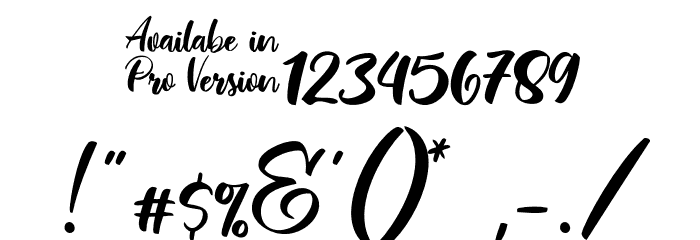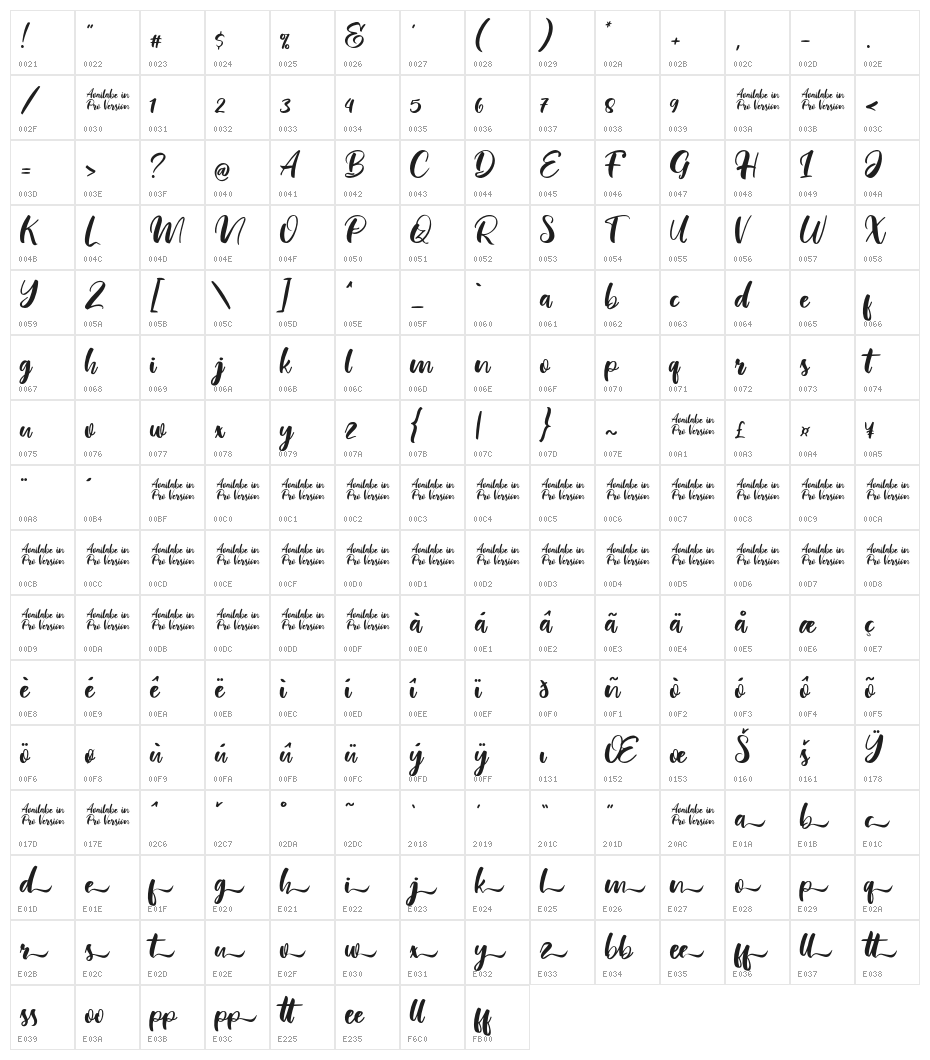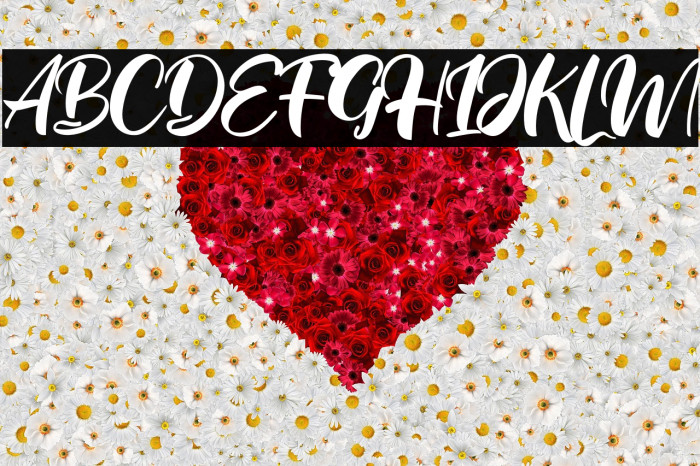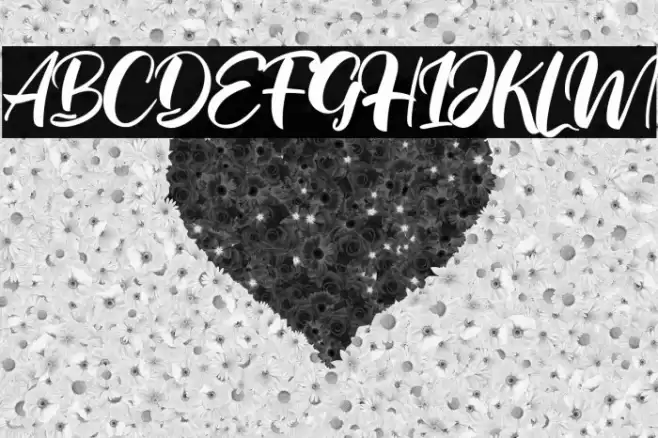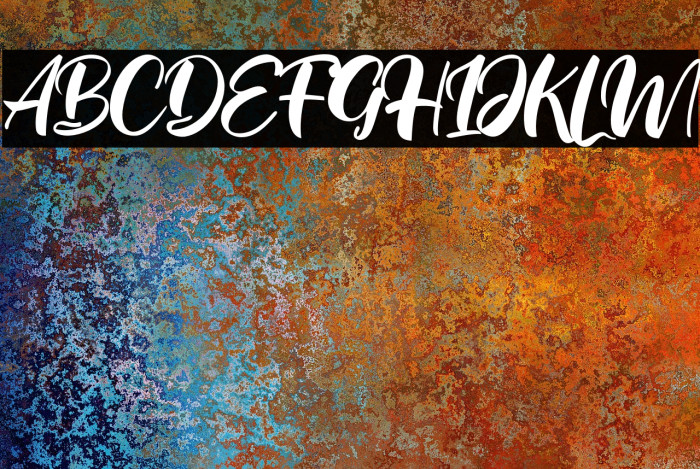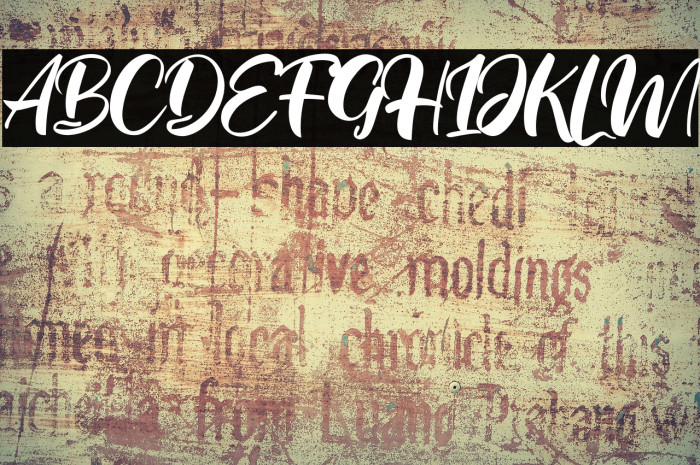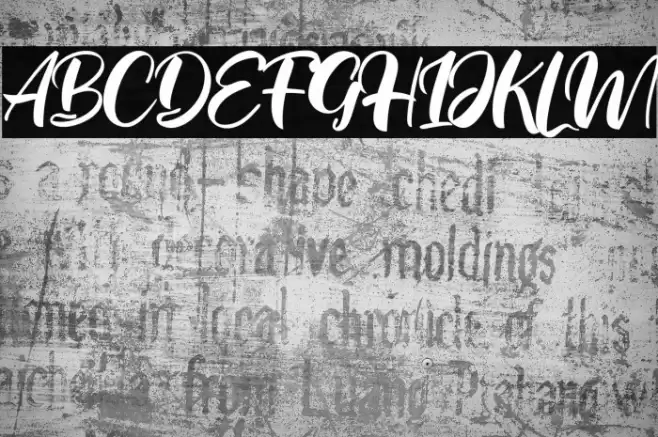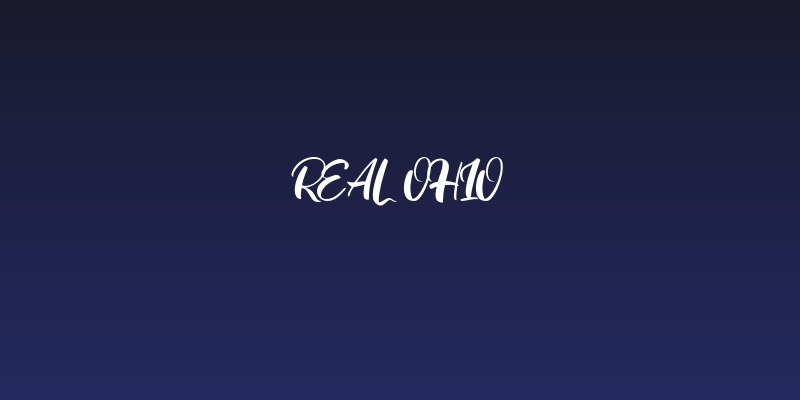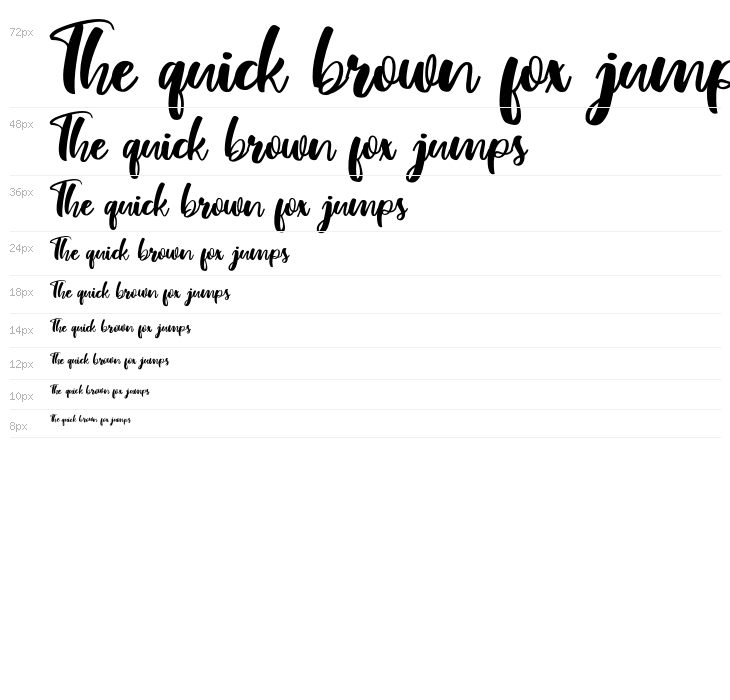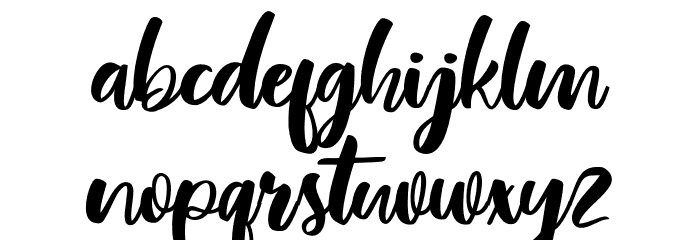
Real Ohio Font
Real Ohio Description
This font features a bold, flowing script style with a modern flair. The uppercase letters are characterized by their elegant, sweeping curves and dynamic strokes, giving a sense of movement and fluidity. The lowercase letters maintain a cohesive style, with smooth connections and a slightly more compact form. Numbers and special characters are designed to match the overall aesthetic, ensuring consistency across all elements. The font's boldness makes it stand out, while its script nature adds a touch of sophistication and elegance.
| Proposed Projects | Ideal for branding projects, wedding invitations, greeting cards, and elegant logo designs. |